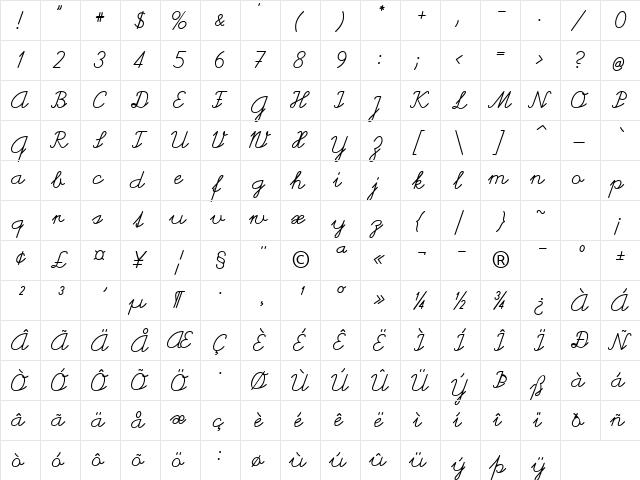
Helvetia Verbundene Regular
| Foundry | Peter Wiegel |
| Designer | Peter Wiegel, original typeface by Carl Albert Fahrenwaldt 1901 |
| Year | 2010 |
Design Context for Helvetia Verbundene Typeface
Helvetia Verbundene takes a measured approach to typography — its balanced proportions and neutral character make it a reliable workhorse for both digital and print work.